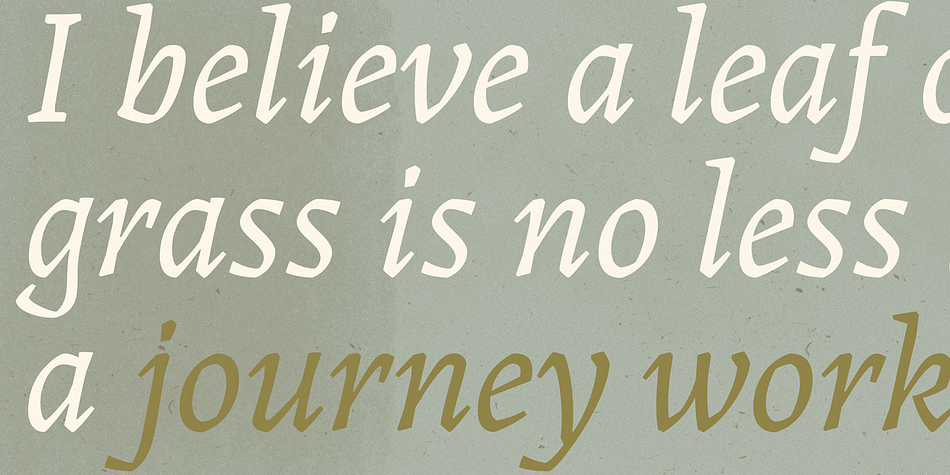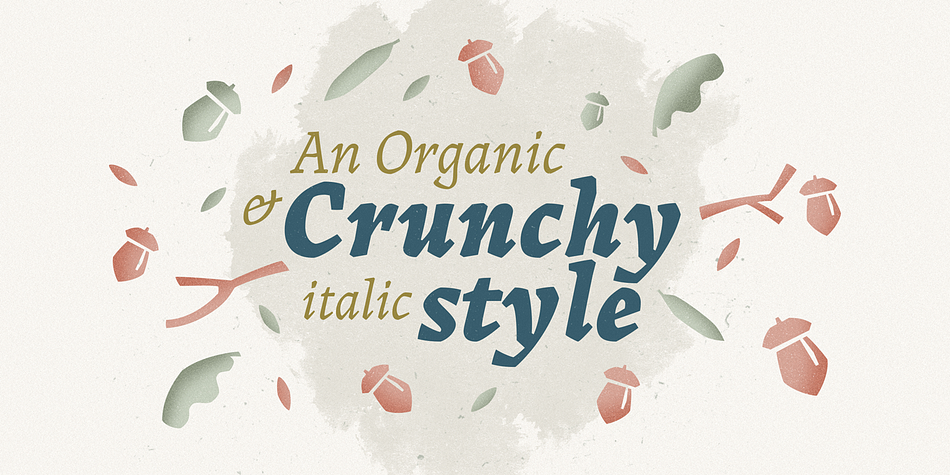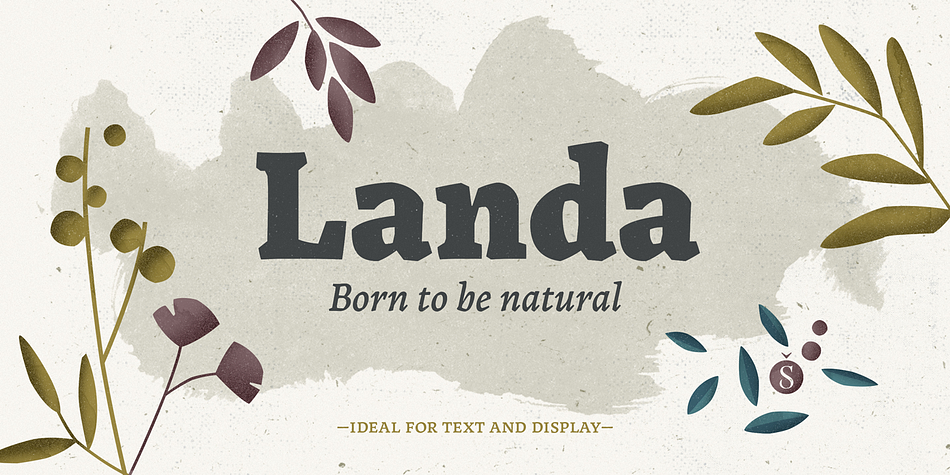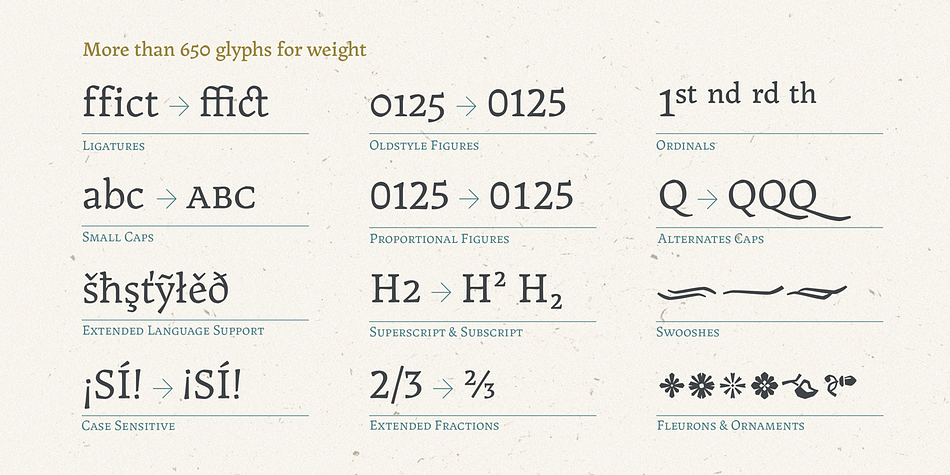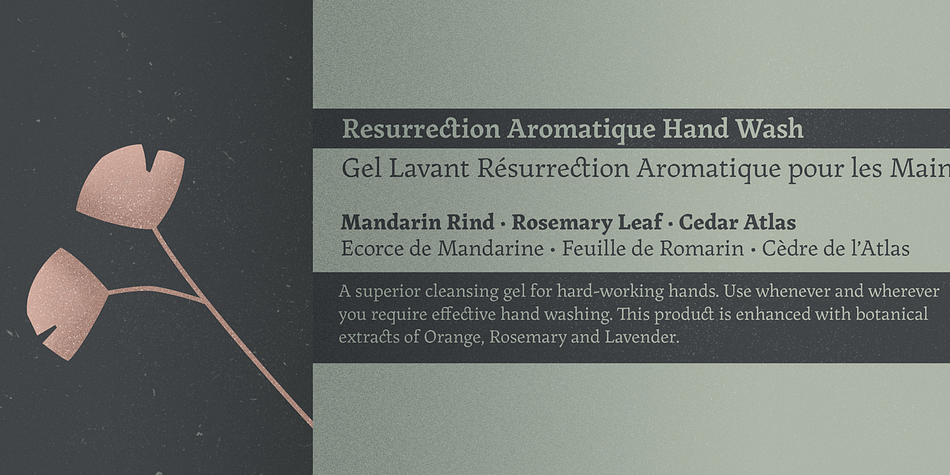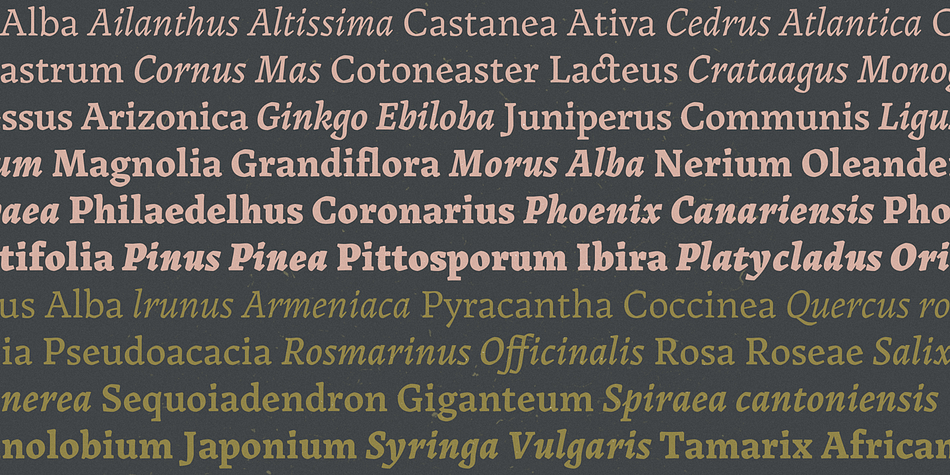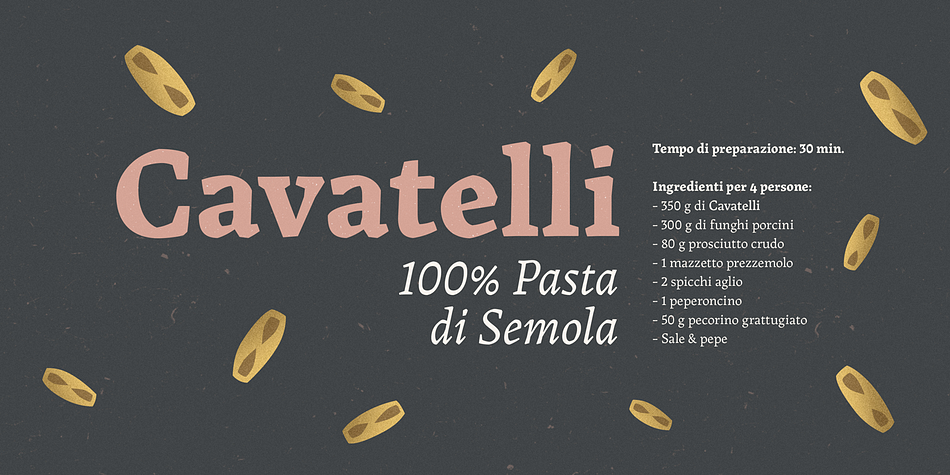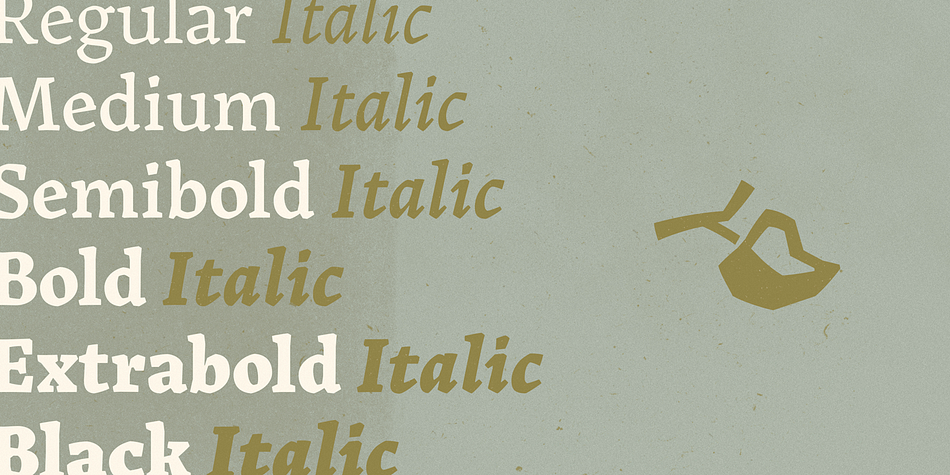
Designed by Pablo Alaejos Perez, Landa is a serif font family. This typeface has twelve styles and was published by Sudtipos.
As good as Nylon is, there’s nothing better than a nice woolly blanket. The smell and coarse, uneven texture are relaxing and feel reassuring. More comfortable.
In a world where technology can reach millimetric precision, sometimes it’s good to connect with the imperfect and controlled impurity that is nature.
Font design in particular has matured through software that can generate the most perfect letters in the world. But most of them don’t have soul.
Landa is a glimpse from the cutting edge into the past. Inspired by Venetian lettering from the 15th century, whilst giving them new meaning, its letters become expressionist and have a modern touch. A rendez-vous between Nicolas Jenson, Oldřich Menhart, and nature itself.
In Landa you can feel the texture of trunks and branches, from full fertile splendour to dried-out frailty. It takes the reader for a stroll through the woods on a late autumn evening, or on an adventure through the Amazonian rainforest, depending on the weight chosen.
In the lighter and italic options, Landa text is organic and rustic, and very comfortable to read. What’s more, while it’s discreet on smaller screens, when enlarged it reveals brittle and expressive calligraphic shapes. This also makes it ideal for packaging or display elements.
Landa provides advanced typographical support in several languages and OpenType features including case-sensitive forms, small caps, contextual alternatives, stylistic alternates, fractions, proportional and tabular figures.
In this case it is technology that serves lettering, not the latter being technology dependent. Let’s not forget, as Erik Spiekermann said “we are still analogical beings. Our brains and eyes are analogical.” Perhaps that’s why to disconnect we always need to go back to forests, rivers, nature. Perhaps that’s why we still prefer wood to steel or wool to nylon.